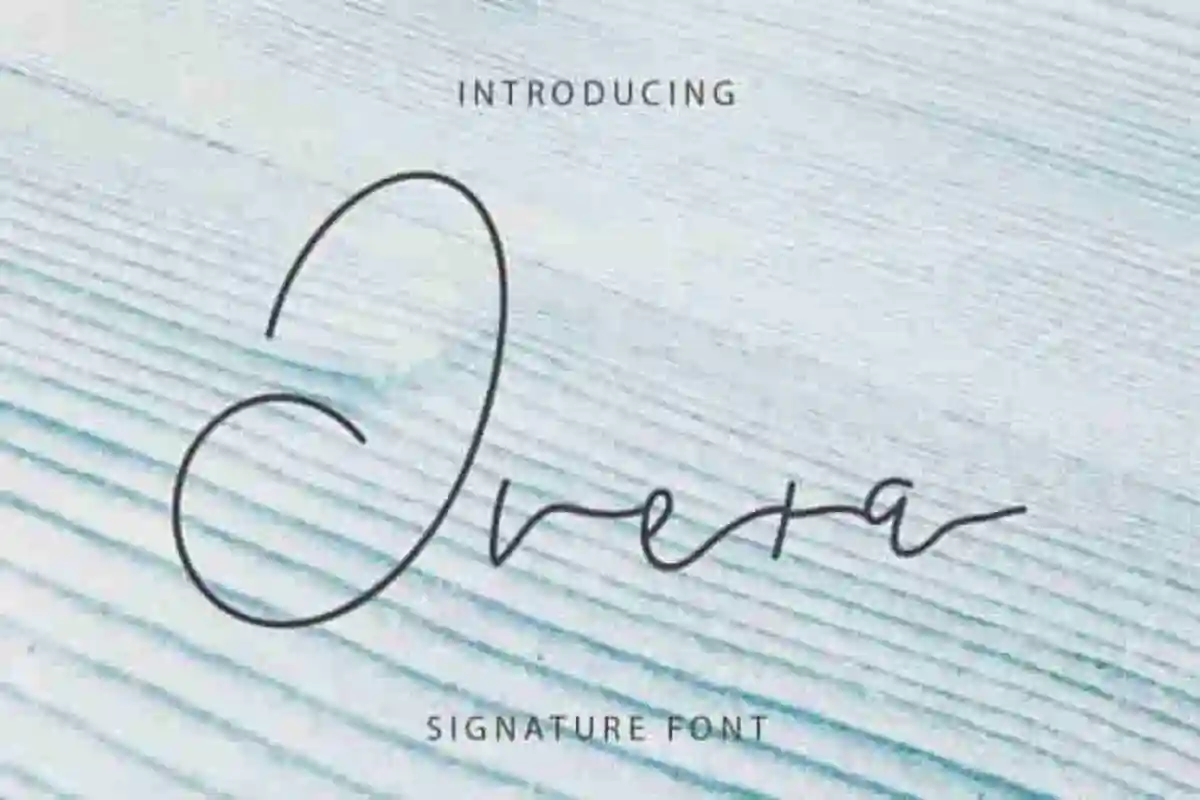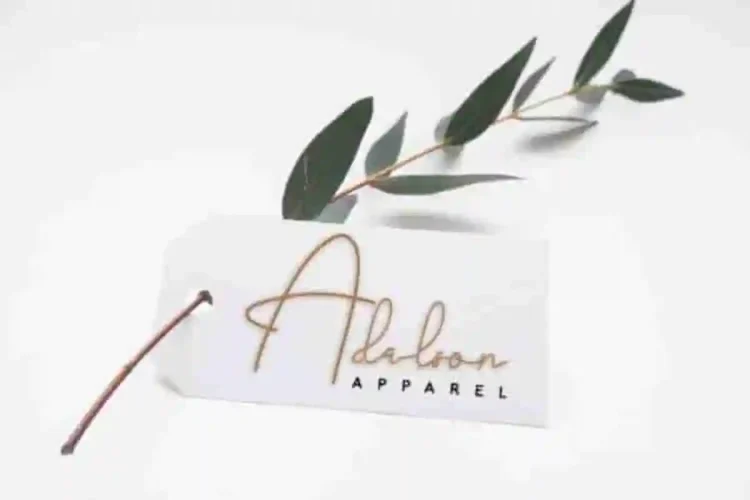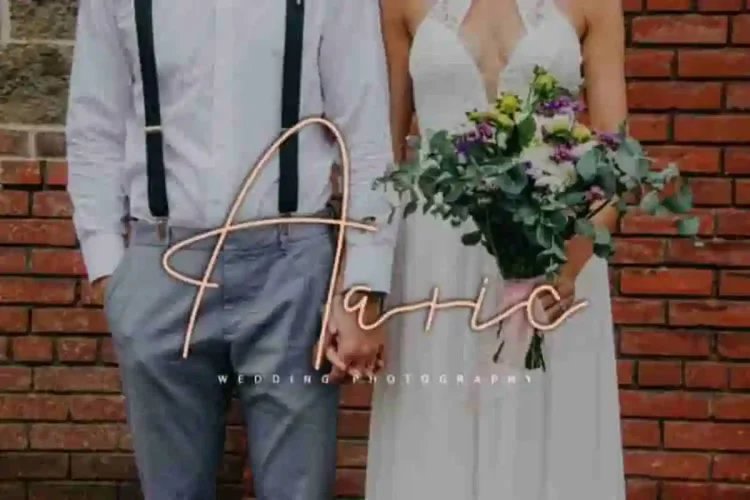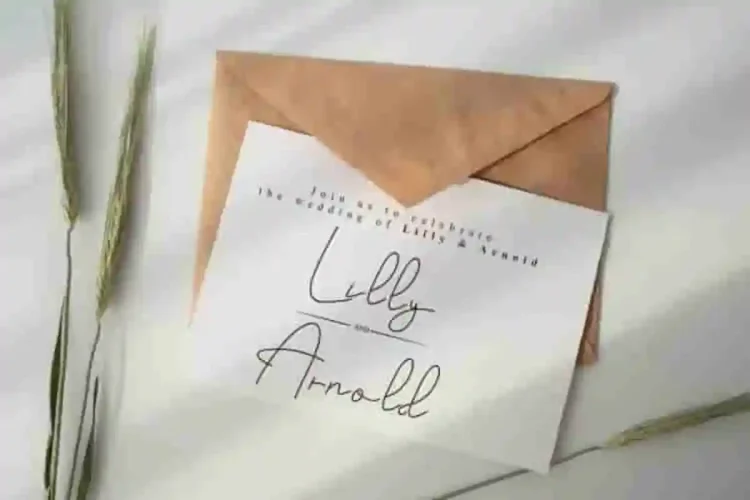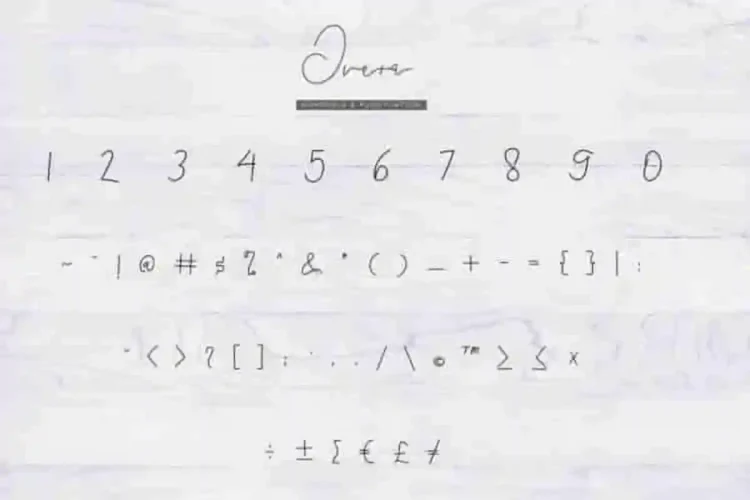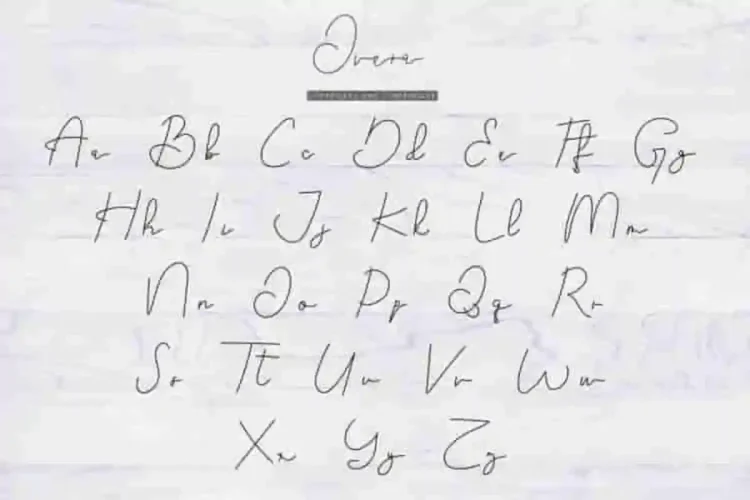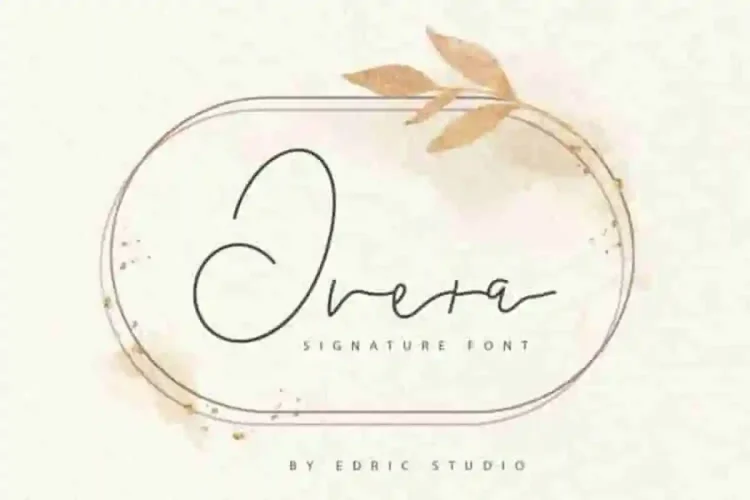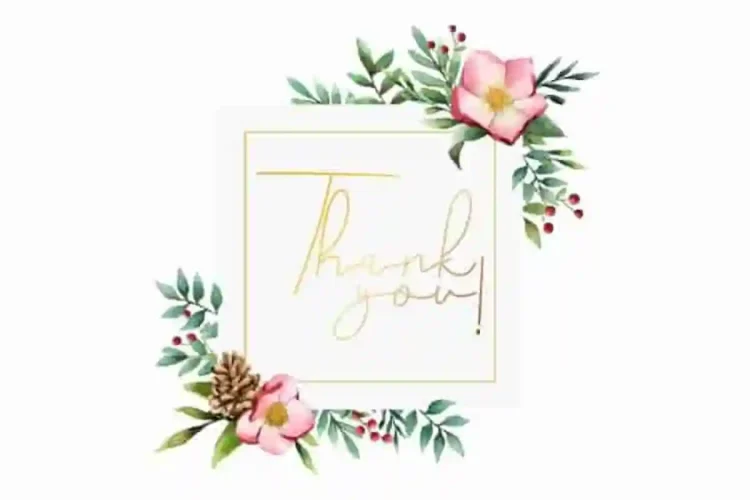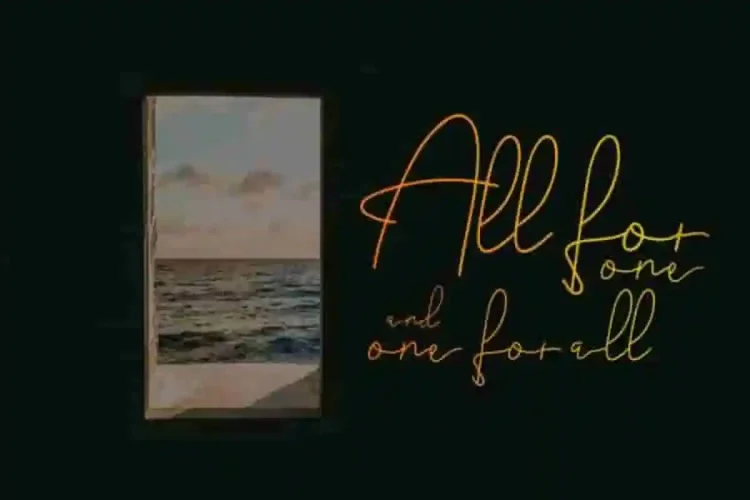
Overa Script Signature Font
To all every Creative folks, Today we are going to present one of our newest font : Overa Signature Font. This new font is a style signature font script. Introducing Overa Signature a stunning brush calligraphy font designed with passion and precision by our skilled typeface designers, Fahri and Sarah, in Bandung, Indonesia.
This font has an exclusive beautiful signature style. The characters of this font is sophisticated, feminine, modern, luxury, elegant, brush and natural look. With these styles you can explore many industries and designs categories : Wedding, catering, Display, Music, Cafe, florist, gardening, makeup, designer etc.
Overa Script Signature Font has a unique and exclusive glyphs that will be great for many projects categories : Logo type, flyer, stationery, business card, signage, flyer, brochure etc.  With your creativity, there’s no limit using with this typeface.